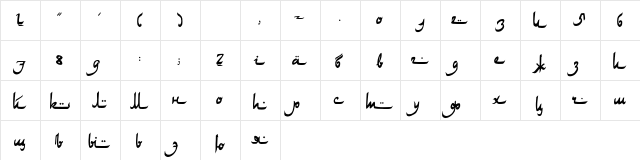
Image_Arabian Regular
Design Context for Image_Arabian Typeface
Image_Arabian is a composed and adaptable typeface that performs quietly and consistently across a wide range of design contexts.